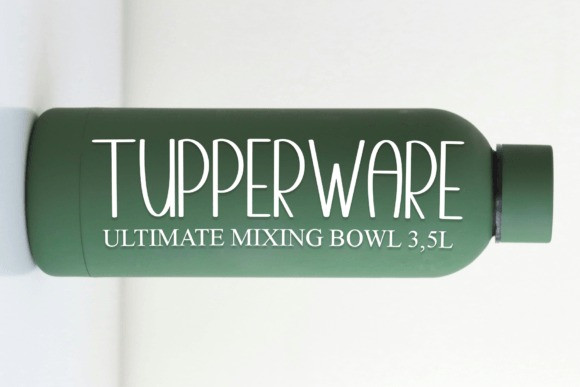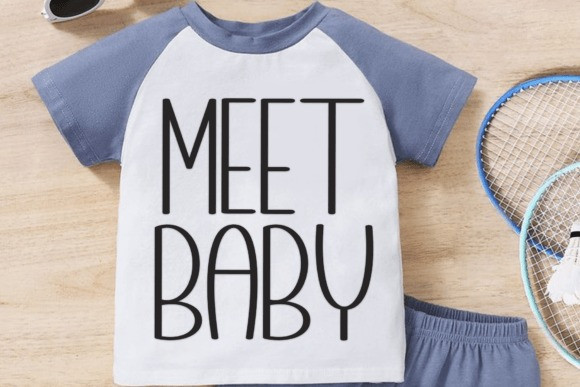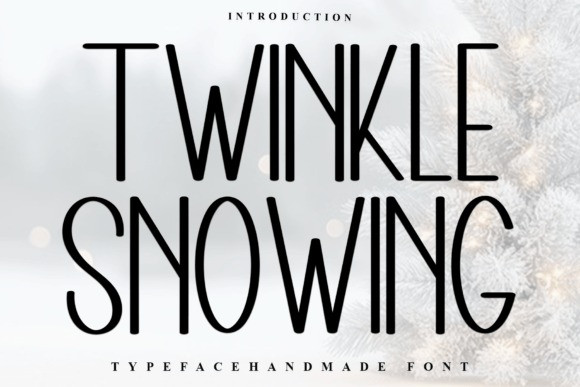
Twinkle Snowing Font
Twinkle Snowing Font is a sleek and modern handmade font with tall, delicate letterforms that evoke the beauty of a winter wonderland. Perfect for holiday designs, invitations, greeting cards, and branding, this typeface brings a touch of elegance and seasonal charm to your projects. Let Twinkle Snowing make your designs sparkle!